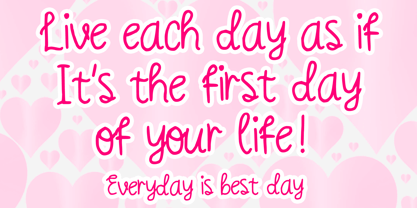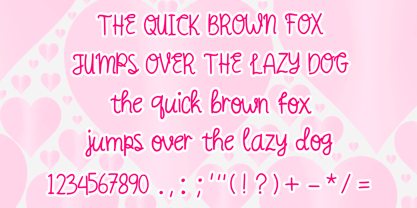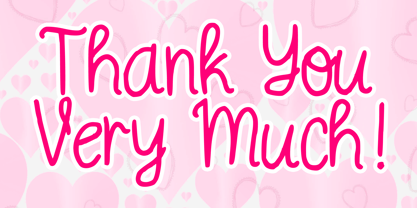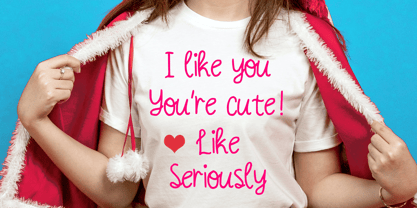
Curly Love Handwriting
by Mvmet
The Curly Love Handwriting Font Family was designed by Gabriel Valentinus and published by Mvmet. Curly Love Handwriting contains 1 styles. More about this family
Curly Love Handwriting is a beautiful curly thin handwritten script font. It will elevate a wide range of design projects to the highest level. You can use this font for many design ideas such as stickers, t-shirt designs, amazing logo designs, magazine or book covers, comics, cartoon drawings, and many more. This font will add a super cool touch to your designs!
Designers: Gabriel Valentinus
Foundry: Mvmet